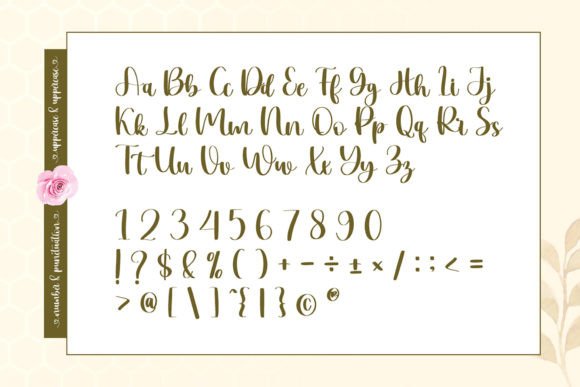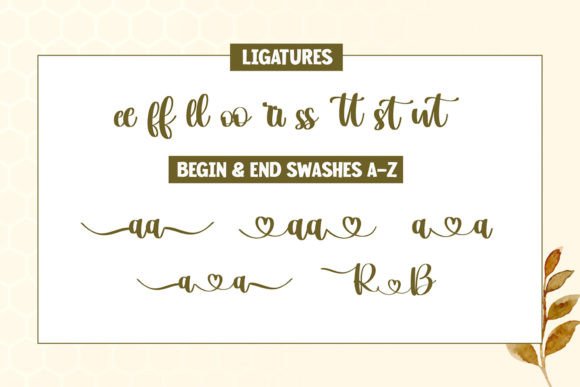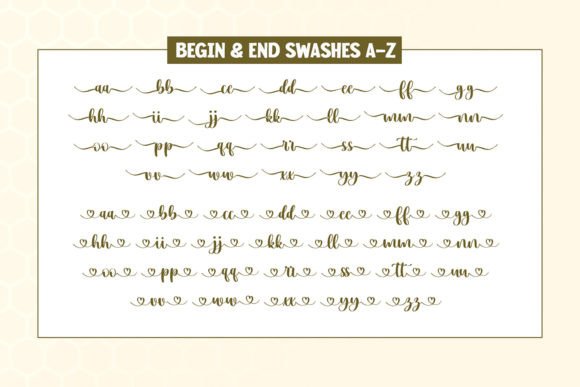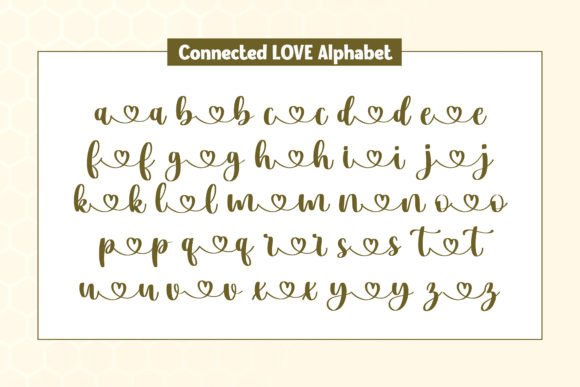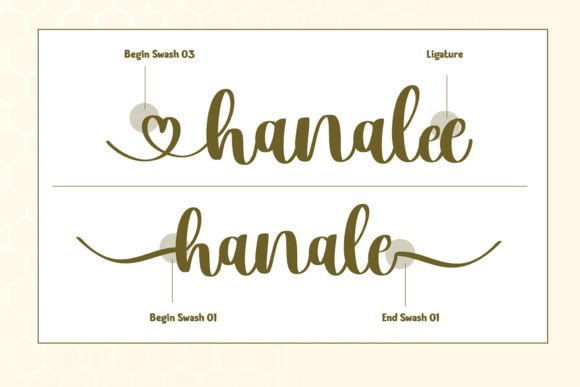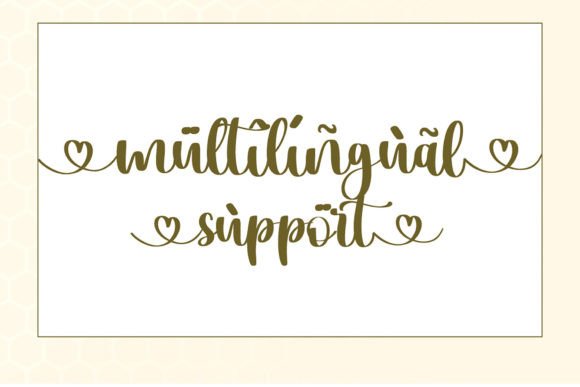
Introducing Hanale Font: The Sweet and Friendly Handwritten Font for Your Creative Projects
Are you a designer, crafter, or DIY enthusiast looking for a font that can add a personal touch to your projects? Look no further than Hanale Font, a sweet and friendly handwritten font that’s perfect for a wide range of designs. With its natural and unique style, Hanale Font is incredibly versatile and can be used in various creative projects, from handmade crafts to digital designs.
The Characteristics of Hanale Font
Hanale Font is a handwritten font that exudes warmth and friendliness. Its natural and unique style makes it stand out from other fonts, and its sweet and approachable feel makes it perfect for designs that require a personal touch. The font has a smooth and flowing script that is easy to read, making it suitable for use in a variety of projects, including:
- Handmade crafts, such as card making, scrapbooking, and journaling
- Digital designs, such as social media graphics, blog posts, and website headers
- Stationery and paper crafts, such as invitations, gift tags, and labels
- Branding and packaging designs, such as logos, business cards, and product labels
The Benefits of Using Hanale Font
Hanale Font offers several benefits to designers and crafters, including:
- Unique and distinctive style: Hanale Font has a one-of-a-kind style that will set your designs apart from others.
- Versatility: The font can be used in a wide range of projects, from handmade crafts to digital designs.
- Ease of use: The font is easy to read and works well in various sizes and resolutions.
- Customization: Hanale Font can be customized to fit your design needs, making it perfect for branding and packaging designs.
Tips for Using Hanale Font in Your Designs
Here are some tips for using Hanale Font in your designs:
- Pair it with other fonts: Hanale Font pairs well with other fonts, such as sans-serif fonts, to create a unique and interesting design.
- Experiment with colors: The font works well with a variety of colors, from bright and bold to soft and pastel.
- Use it in combination with images: Hanale Font can be used in combination with images to create a visually appealing design.
- Make it your own: Don’t be afraid to experiment and make Hanale Font your own by adding your own personal touch.
Where to Use Hanale Font
Hanale Font can be used in a variety of projects and designs, including:
- Social media graphics: Use Hanale Font to create eye-catching social media graphics that will grab the attention of your followers.
- Blog posts: Add a personal touch to your blog posts with Hanale Font, making them more engaging and readable.
- Website headers: Use Hanale Font to create a unique and memorable website header that will set your website apart from others.
- Handmade crafts: Hanale Font is perfect for handmade crafts, such as card making, scrapbooking, and journaling.
| Font Name | Hanale Font |
| Author | afkaristudio |
In conclusion, Hanale Font is a sweet and friendly handwritten font that’s perfect for designers, crafters, and DIY enthusiasts. Its natural and unique style makes it incredibly versatile and suitable for a wide range of designs. With its ease of use, customization options, and versatility, Hanale Font is a great addition to any design project. So why not give Hanale Font a try and see how it can elevate your designs to the next level?